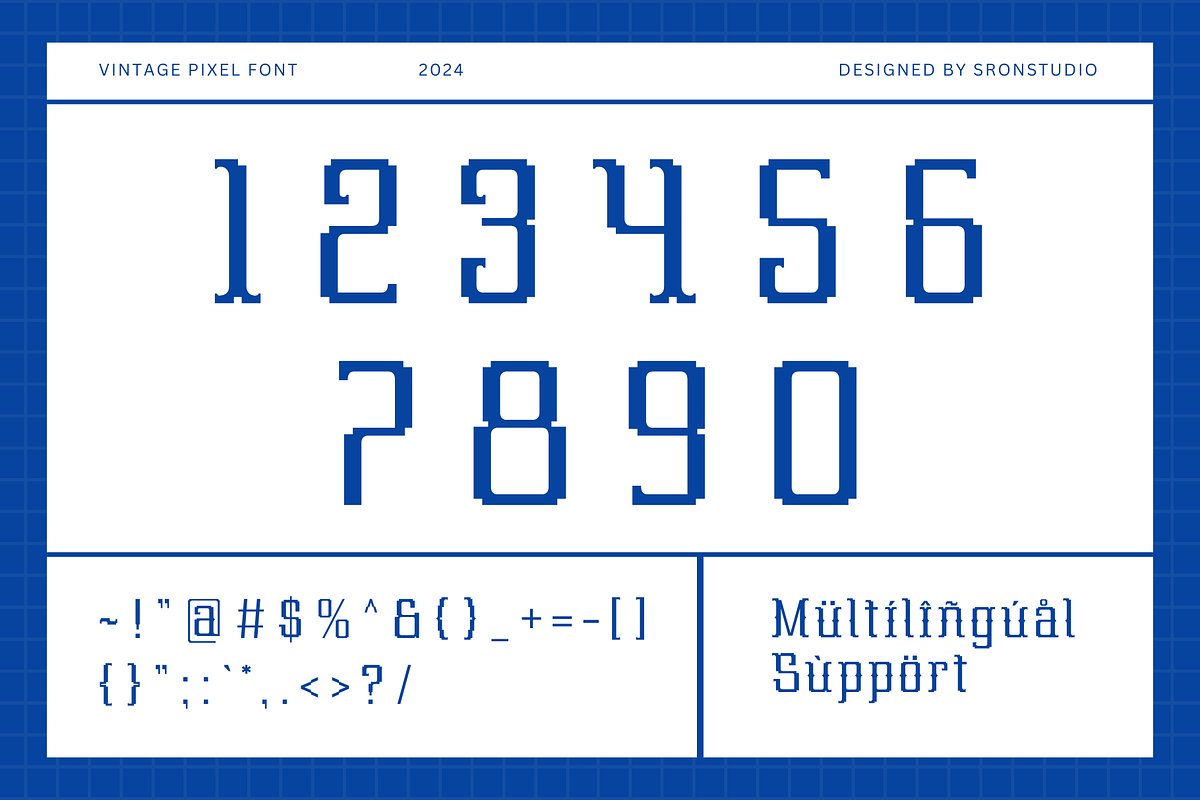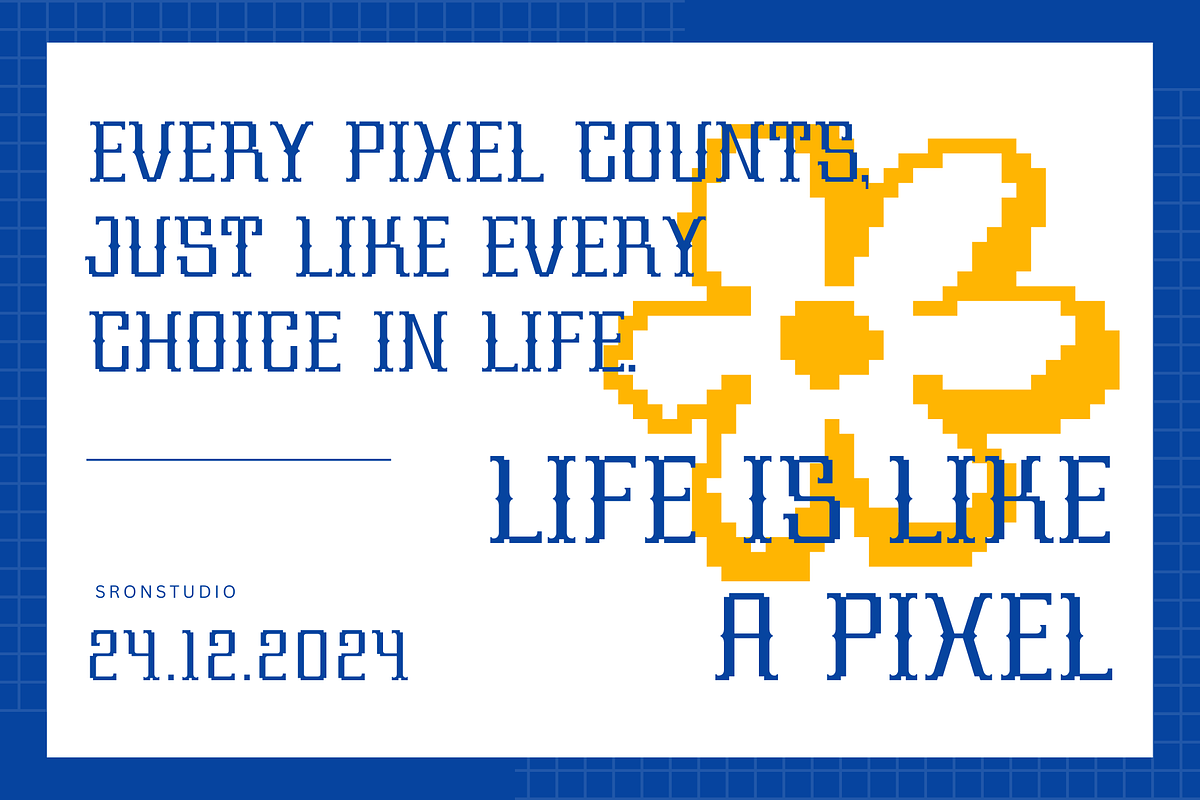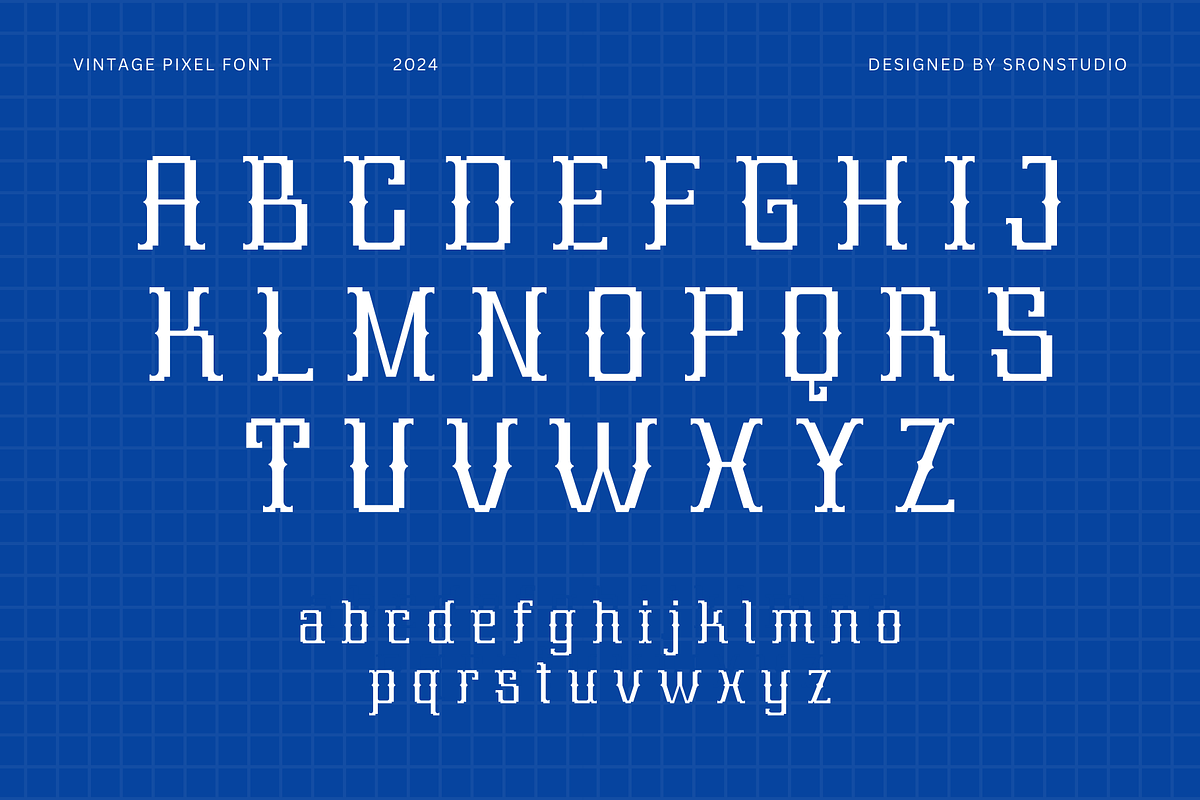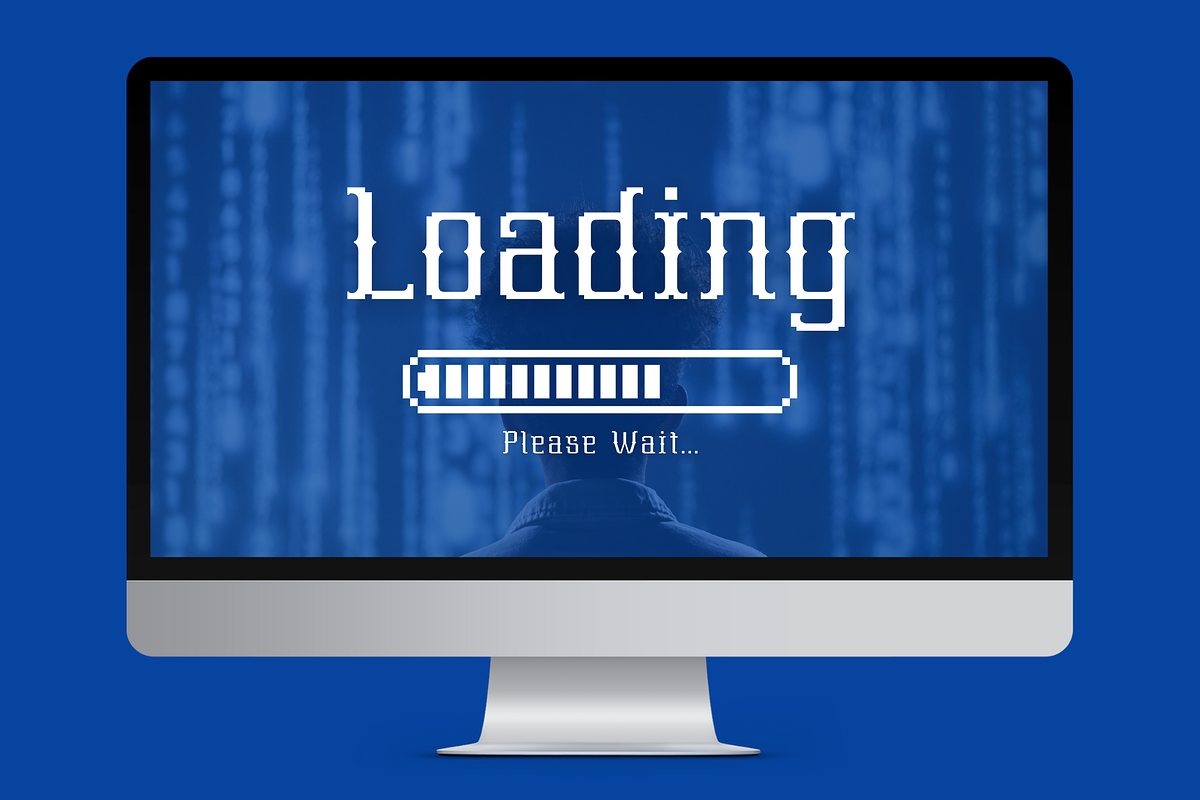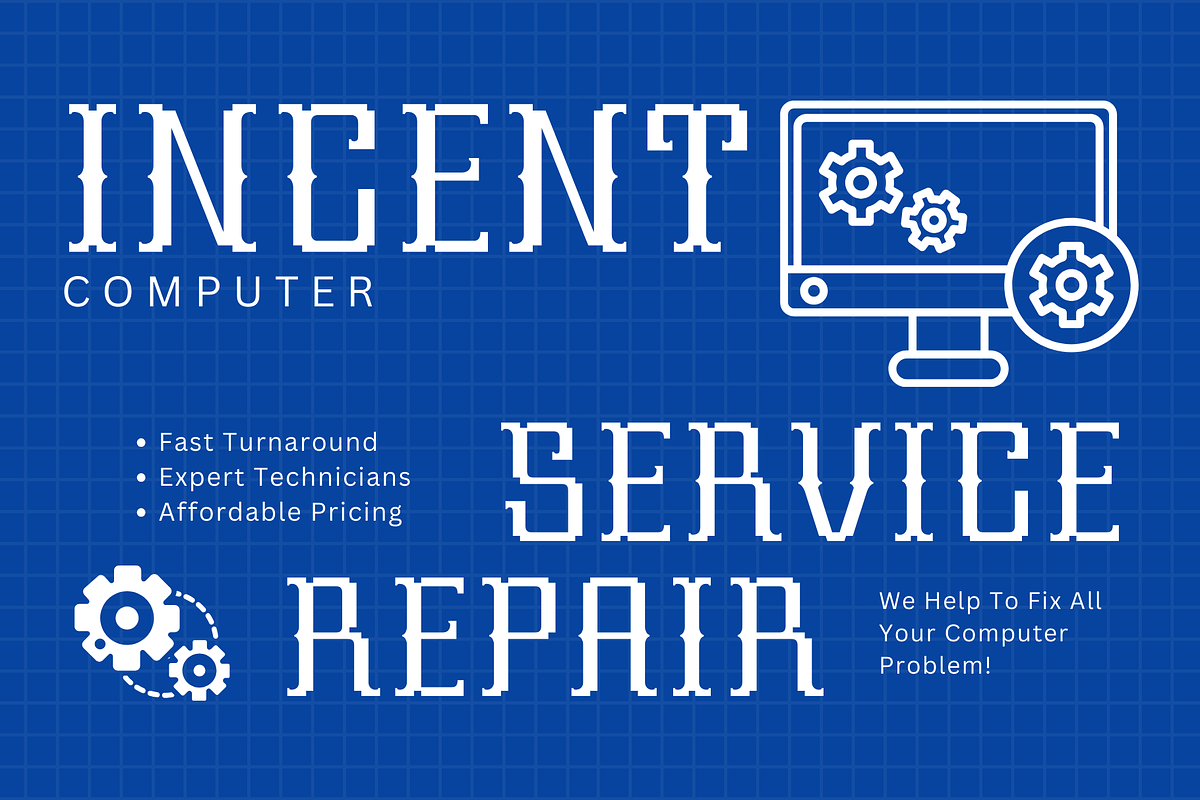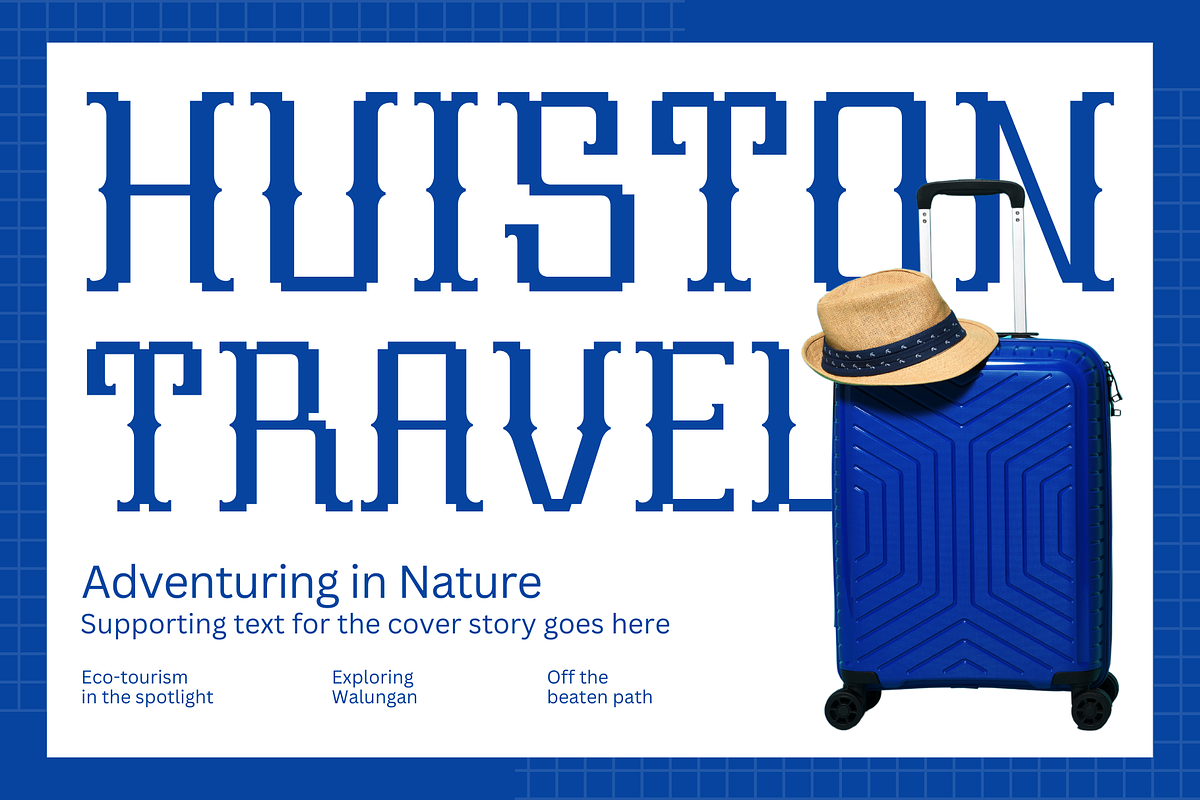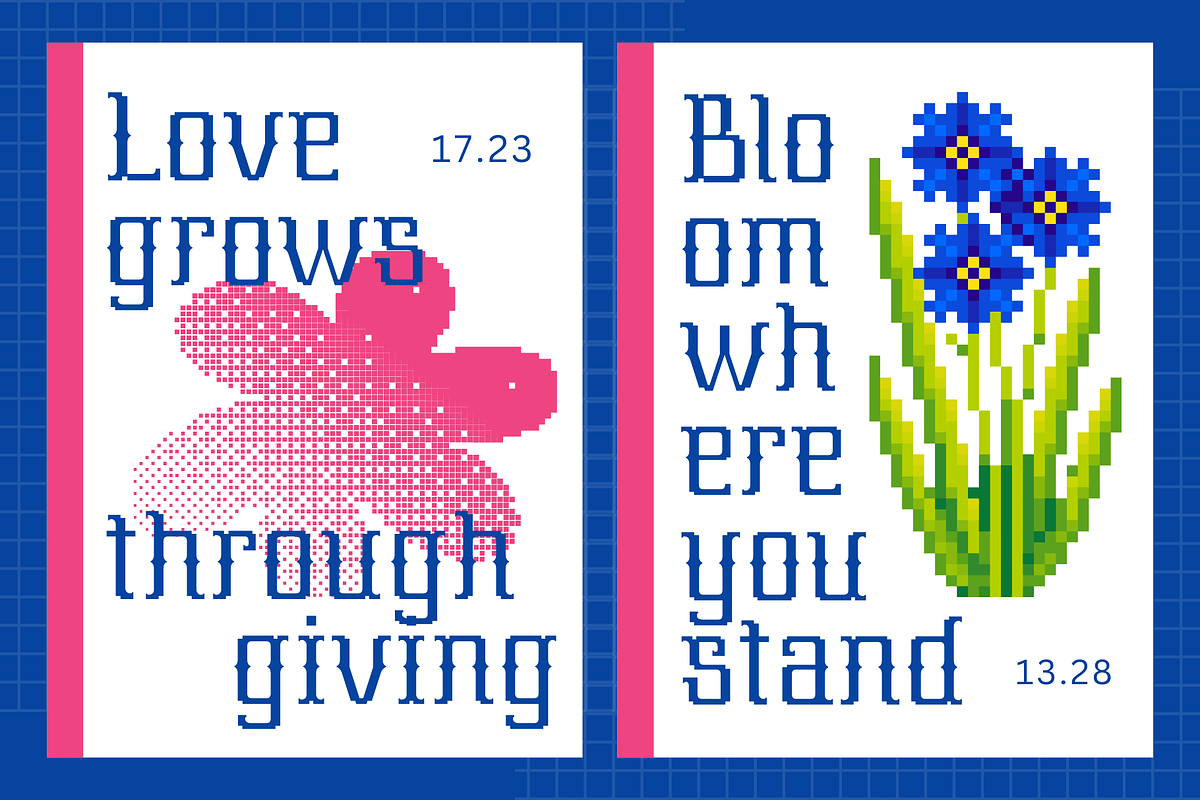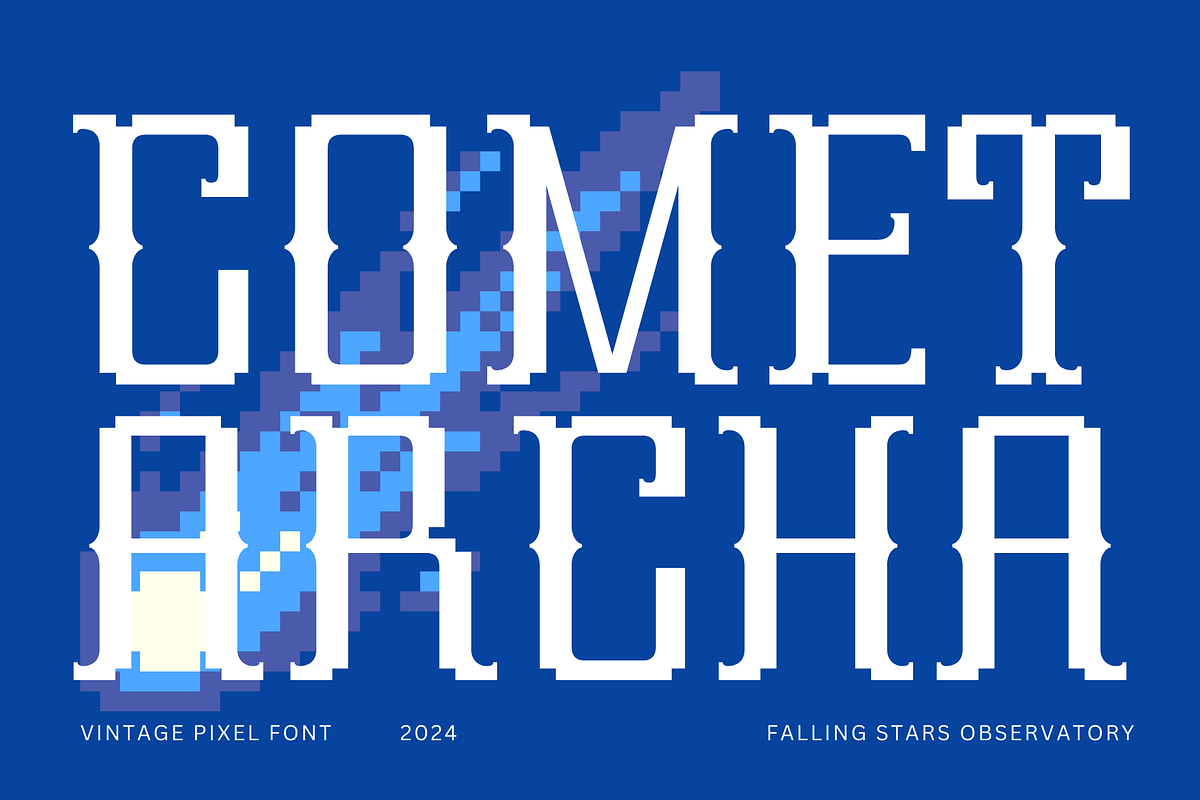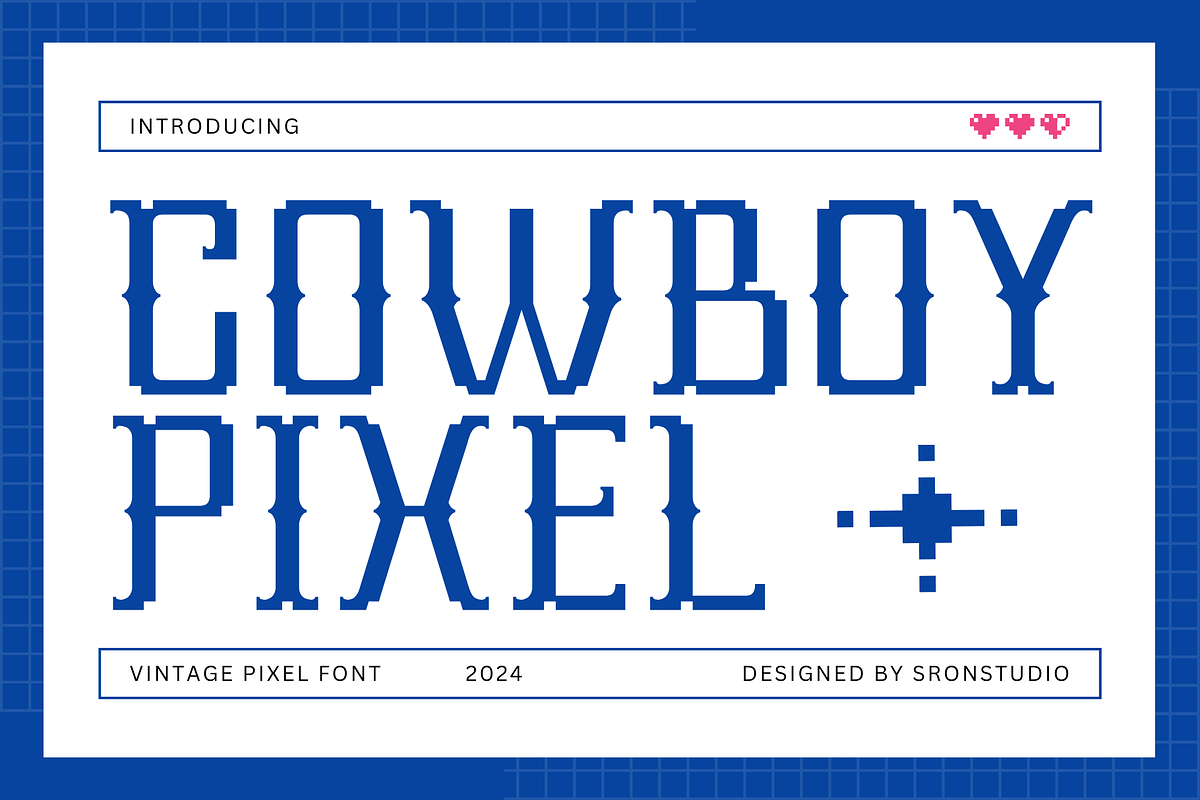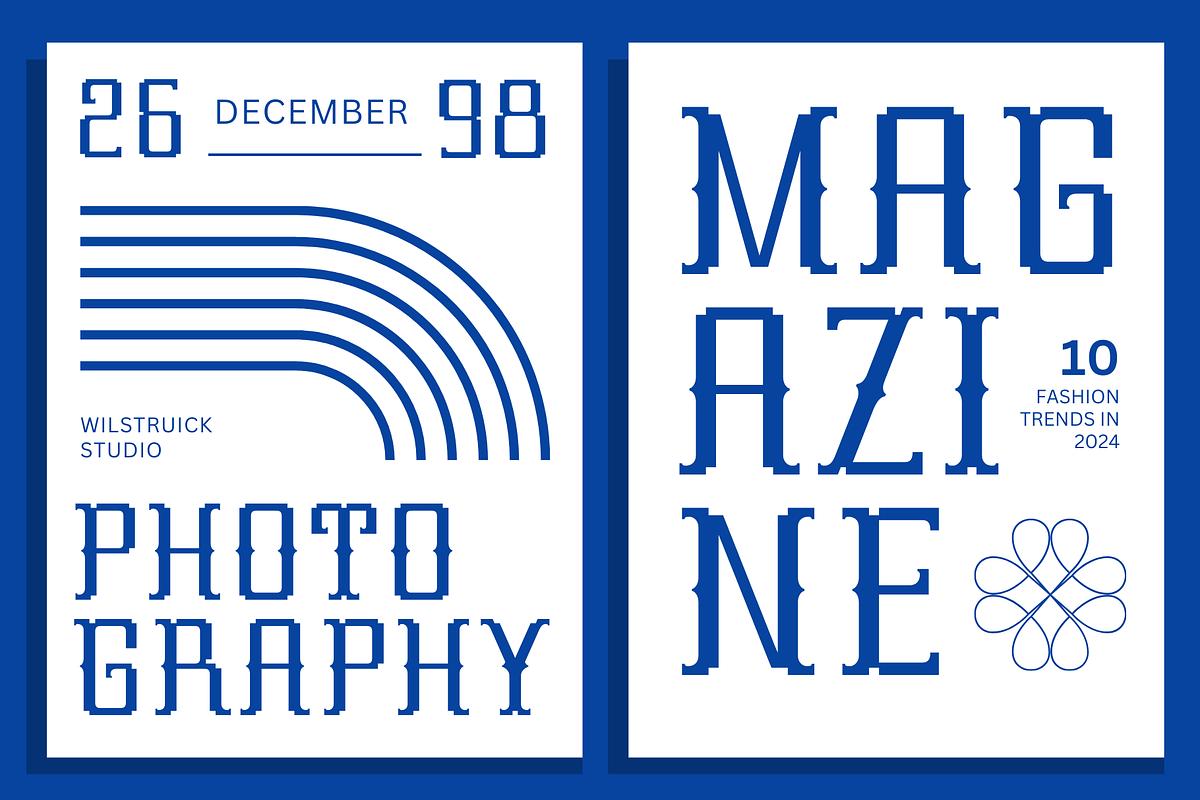
Cowboy Pixel - Western Pixel Font
Cowboy Pixel is a unique western cowboy pixel font that combines retro charm with rugged style. Perfect for games, posters, logos, and creative designs with a nostalgic Wild West vibe. Saddle up your projects with Cowboy Pixel!!